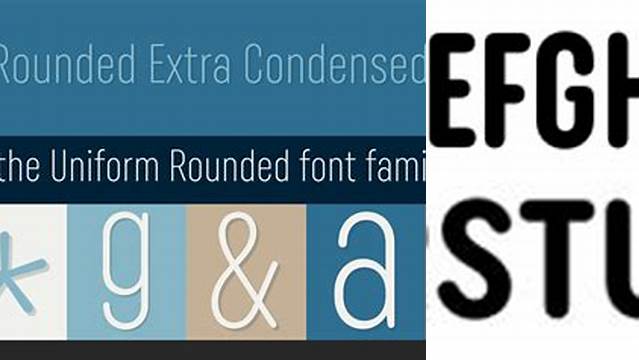
Free Uniform Rounded Condensed Font Download Guide
Introduction: The Appeal of Uniform Rounded Condensed Fonts
Uniform rounded condensed fonts have become increasingly popular in the design world, and for good reason. These fonts offer a unique blend of modernity and readability, making them a versatile choice for a wide range of projects. Guys, if you're looking to add a touch of contemporary flair to your designs while ensuring clarity and legibility, then uniform rounded condensed fonts might just be the perfect solution. In this comprehensive guide, we'll delve into the characteristics of these fonts, explore their various applications, and most importantly, show you where you can download them for free. Let's dive in and discover the world of uniform rounded condensed fonts!
Uniform rounded condensed fonts are characterized by their consistent stroke weight, soft, rounded edges, and narrow width. This combination creates a clean, modern aesthetic that is both visually appealing and highly functional. The uniformity in stroke weight ensures a balanced appearance, while the rounded edges add a touch of warmth and approachability. The condensed nature of these fonts allows for more text to fit into a given space, making them ideal for headlines, titles, and other areas where space is limited. Their clarity and legibility make them suitable for body text as well, especially in digital formats where readability is paramount. The versatility of uniform rounded condensed fonts stems from their ability to adapt to various design styles. They can be used in minimalist designs to enhance the clean, uncluttered look, or they can be incorporated into more complex layouts to add a touch of sophistication. Their modern aesthetic makes them a great choice for tech-related projects, while their readability ensures they work well in informational materials. The fonts' soft edges make them approachable, making them suitable for designs that aim to convey a sense of friendliness and warmth. They strike a balance between visual appeal and practicality, making them a valuable asset for designers. Whether you're working on a website, a brochure, or a presentation, a uniform rounded condensed font can help elevate your design and deliver your message effectively. The rounded corners soften the overall look, making the text less harsh and more inviting to the reader. This is particularly beneficial in designs where you want to create a sense of trust and approachability, such as in branding for healthcare or education.
What Makes Uniform Rounded Condensed Fonts Unique?
The uniqueness of uniform rounded condensed fonts lies in their blend of several key characteristics. The combination of rounded terminals, a condensed form, and a uniform stroke weight creates a distinct visual identity that sets them apart from other font styles. This unique aesthetic makes them a popular choice for designers looking to make a statement while maintaining readability and a modern feel. These fonts are not just about looking good; they are also about functionality and practicality, making them a favorite in the design community. The rounded terminals soften the overall appearance of the font, giving it a friendly and approachable feel. This is in contrast to fonts with sharp, angular terminals, which can sometimes appear harsh or overly formal. The roundedness adds a touch of warmth and makes the text more inviting to read. The condensed form factor is another defining characteristic. It allows for more characters to be placed within a limited space without sacrificing readability. This is particularly useful in headlines, titles, and other areas where space is at a premium. The condensed nature of the font also gives it a modern and streamlined appearance, making it suitable for contemporary designs. Uniform stroke weight is crucial to the overall aesthetic. It ensures that the thickness of the lines in each character is consistent, creating a balanced and harmonious look. This uniformity contributes to the font's clean and modern feel, making it easy on the eyes and highly legible. The consistent stroke weight also ensures that the font looks good at various sizes, from small body text to large headlines. The combination of these characteristics results in a font that is both visually appealing and highly functional. Uniform rounded condensed fonts are versatile and can be used in a wide range of design projects, from branding and advertising to web design and print materials. Their modern aesthetic makes them a great choice for tech startups and innovative companies, while their readability makes them suitable for more traditional applications as well. They strike a balance between style and substance, making them a valuable tool for any designer. The uniqueness of these fonts also lies in their ability to convey a sense of clarity and efficiency. The condensed form suggests a streamlined approach, while the rounded terminals add a touch of humanism. This combination makes them particularly effective for communicating complex information in a clear and accessible way. They are ideal for infographics, data visualizations, and other designs where you need to present information in a concise and engaging manner. The aesthetic appeal and functionality of uniform rounded condensed fonts make them a standout choice in the world of typography.
How to Use Uniform Rounded Condensed Fonts Effectively
Effective use of uniform rounded condensed fonts can significantly enhance your design projects, but it's crucial to understand how to use them properly. These fonts, with their clean lines and modern aesthetic, can be incredibly versatile, but they also have specific strengths and weaknesses that should be considered. In this section, we'll explore some best practices for using uniform rounded condensed fonts to ensure that your designs are both visually appealing and highly functional. Guys, let's talk typography! One of the primary uses for uniform rounded condensed fonts is in headlines and titles. Their condensed nature allows you to fit more text into a smaller space, making them ideal for grabbing attention and conveying key messages. The rounded edges add a touch of softness, making the text feel approachable and inviting. When using these fonts in headlines, make sure to choose a size that is both legible and visually impactful. Pair uniform rounded condensed fonts with complementary body text fonts. Since these fonts have a distinct personality, it's important to choose a body text font that balances their aesthetic without overpowering them. Sans-serif fonts with a more classic or neutral design often work well, as do serif fonts with a modern feel. The key is to create a visual hierarchy that guides the reader through the content. In body text, uniform rounded condensed fonts can be effective, but it's essential to ensure readability. The condensed nature of these fonts means that the characters are closer together, which can sometimes make them harder to read in large blocks of text. To mitigate this, use a slightly larger font size and increase the line spacing (leading) to give the text more breathing room. Also, avoid using these fonts in very long paragraphs, as they can become tiring to read. Consider the overall tone and style of your design when using uniform rounded condensed fonts. These fonts have a modern, clean aesthetic, so they work well in designs that aim to convey a sense of innovation, efficiency, or approachability. They are particularly suitable for tech-related projects, startups, and designs that target a younger audience. However, they may not be the best choice for designs that require a more traditional or formal feel. Use uniform rounded condensed fonts consistently throughout your design to create a cohesive visual identity. Consistency in typography is crucial for building brand recognition and creating a professional look. Choose a few key fonts and stick to them, using different weights and sizes to create visual interest and hierarchy. Avoid using too many different fonts in a single design, as this can make it look cluttered and unprofessional. Pay attention to kerning and tracking when using uniform rounded condensed fonts. Kerning refers to the spacing between individual characters, while tracking refers to the overall spacing of a block of text. Adjusting these settings can significantly improve the readability and visual appeal of your text. In general, condensed fonts may require a bit more kerning and tracking to ensure that the characters don't look too cramped. Uniform rounded condensed fonts are powerful tools in a designer's arsenal, but they require careful consideration and skillful application. By understanding their strengths and weaknesses and following these best practices, you can use them to create designs that are both visually stunning and highly effective.
Conclusion: Embracing the Versatility of Uniform Rounded Condensed Fonts
In conclusion, uniform rounded condensed fonts offer a versatile and stylish option for a wide range of design projects. Their unique blend of modernity, readability, and approachability makes them a valuable asset for designers looking to create impactful and engaging visuals. Whether you're designing a website, a brochure, or a presentation, these fonts can help you achieve a contemporary and professional look. Guys, remember, the key is to use them thoughtfully and strategically to maximize their impact. By understanding their characteristics, exploring the resources available for free downloads, and following best practices for their use, you can harness the power of uniform rounded condensed fonts to elevate your design work. Embrace their versatility, experiment with their applications, and discover the endless possibilities they offer. Happy designing!